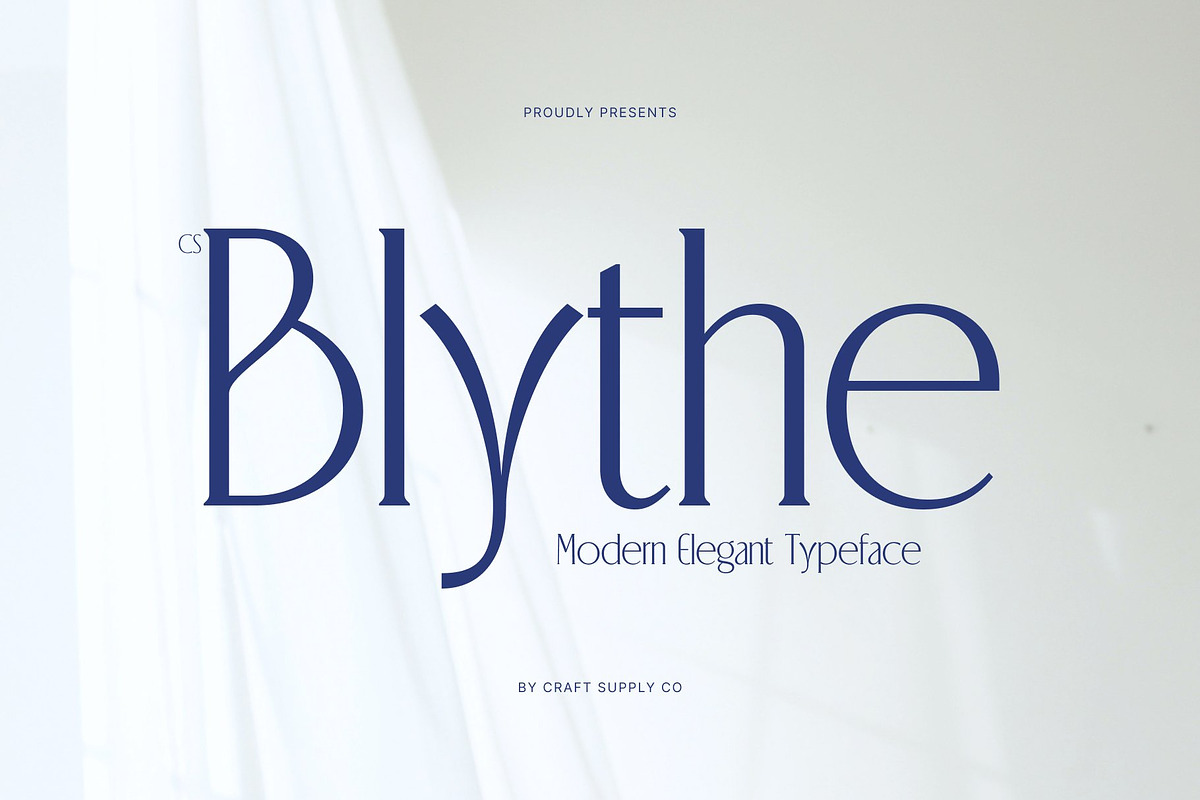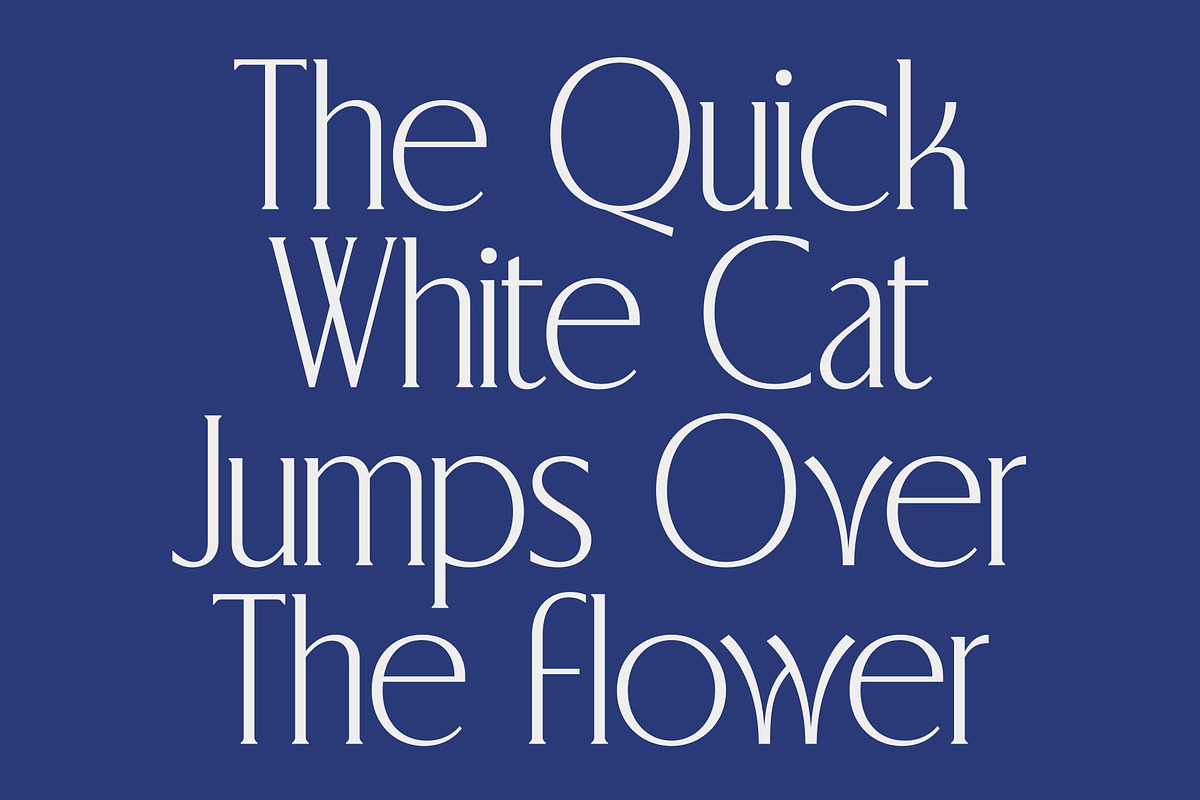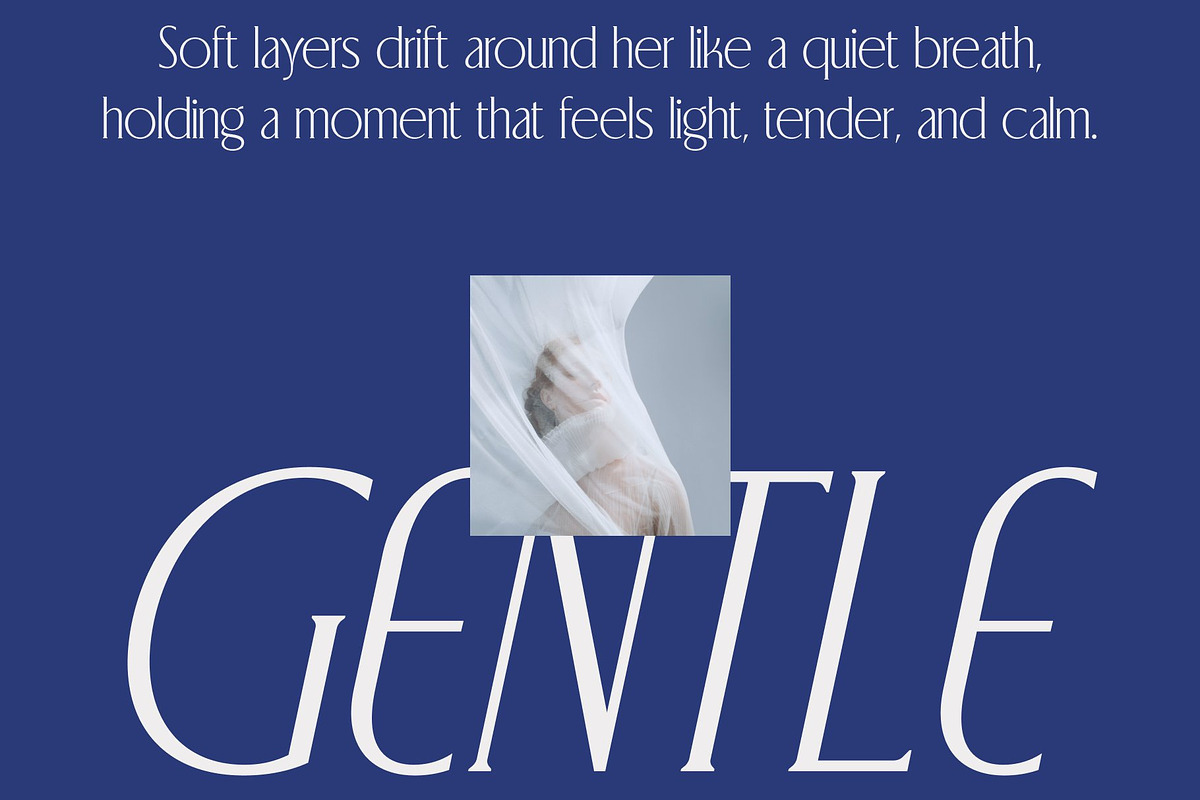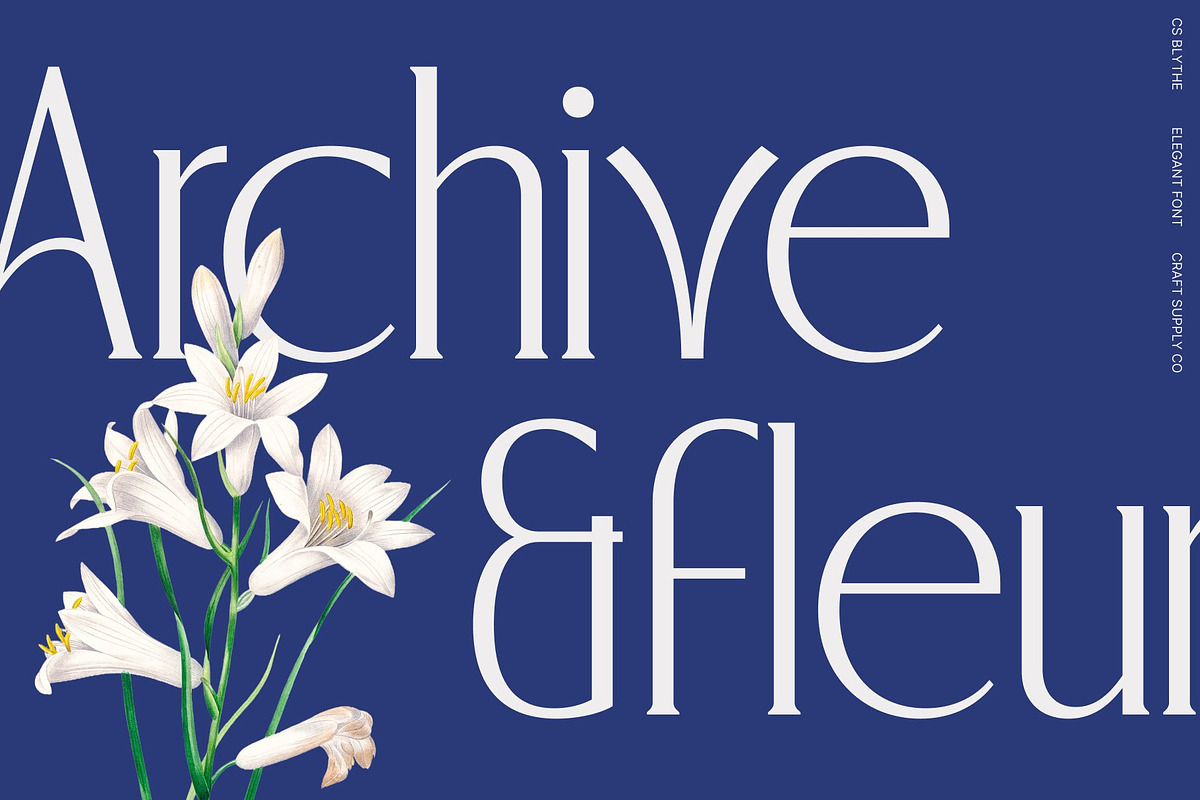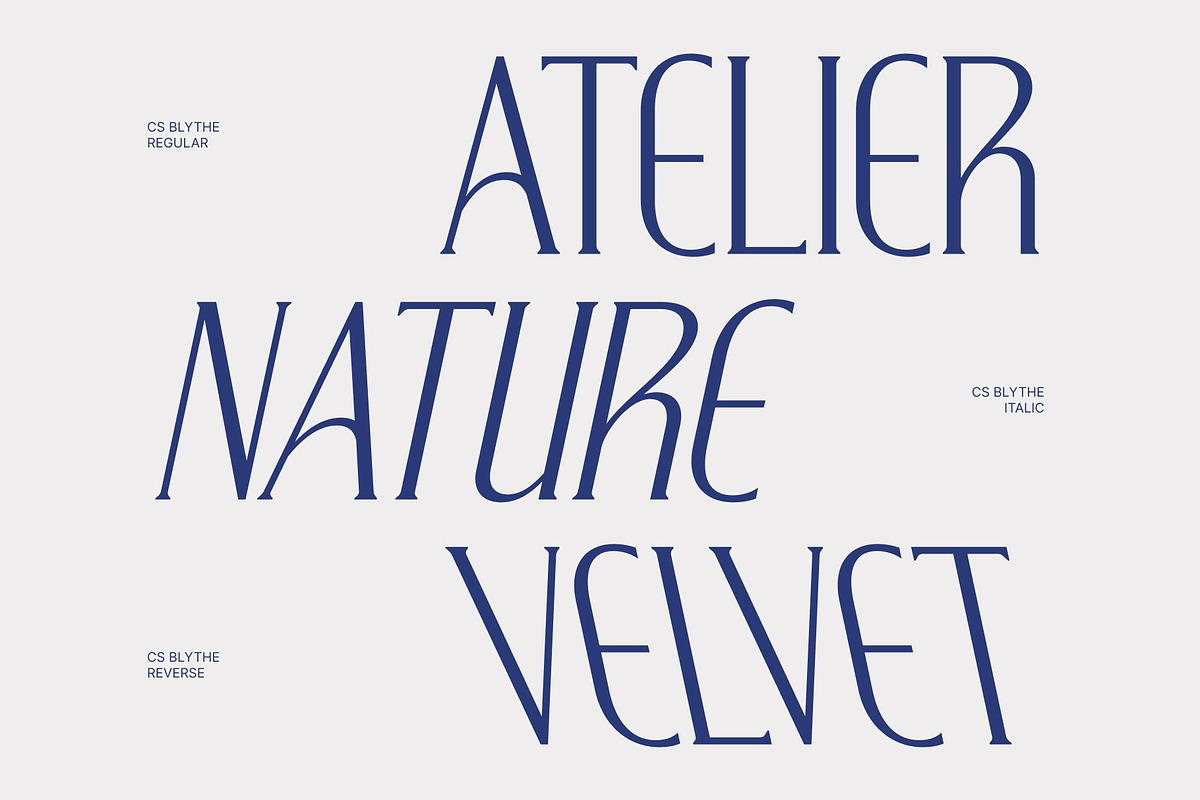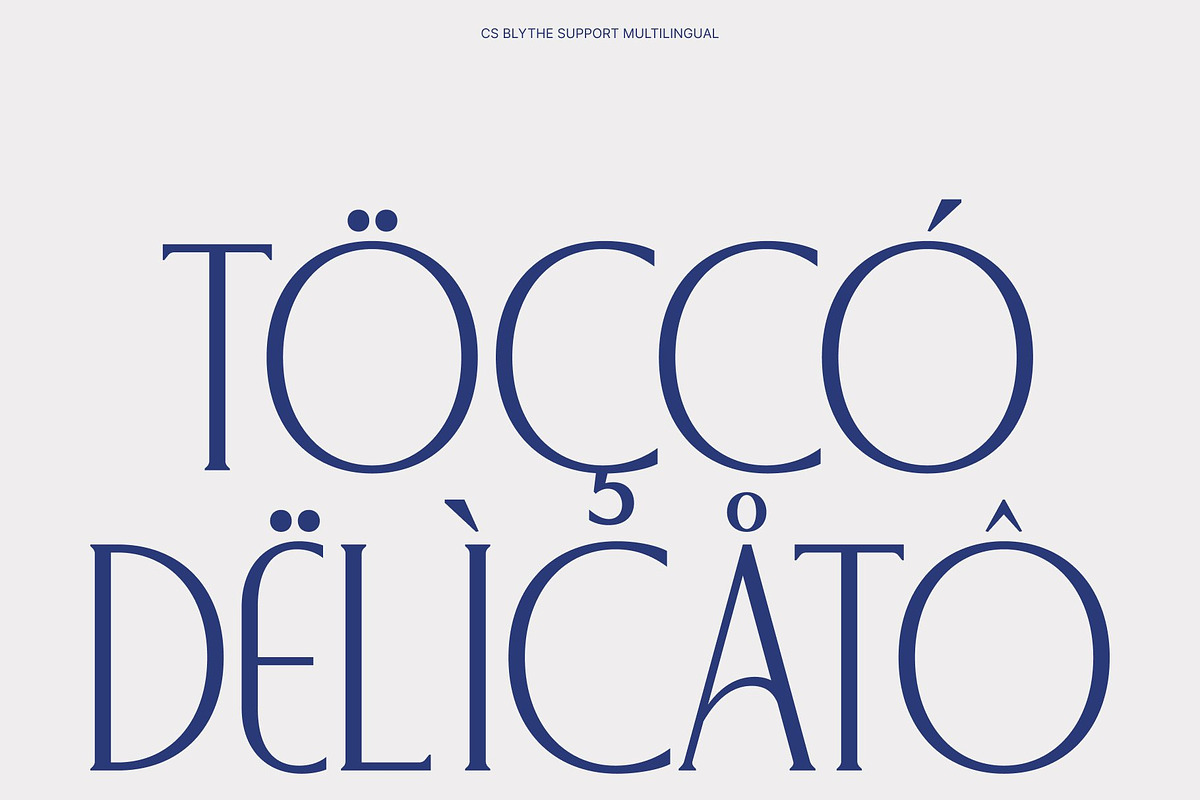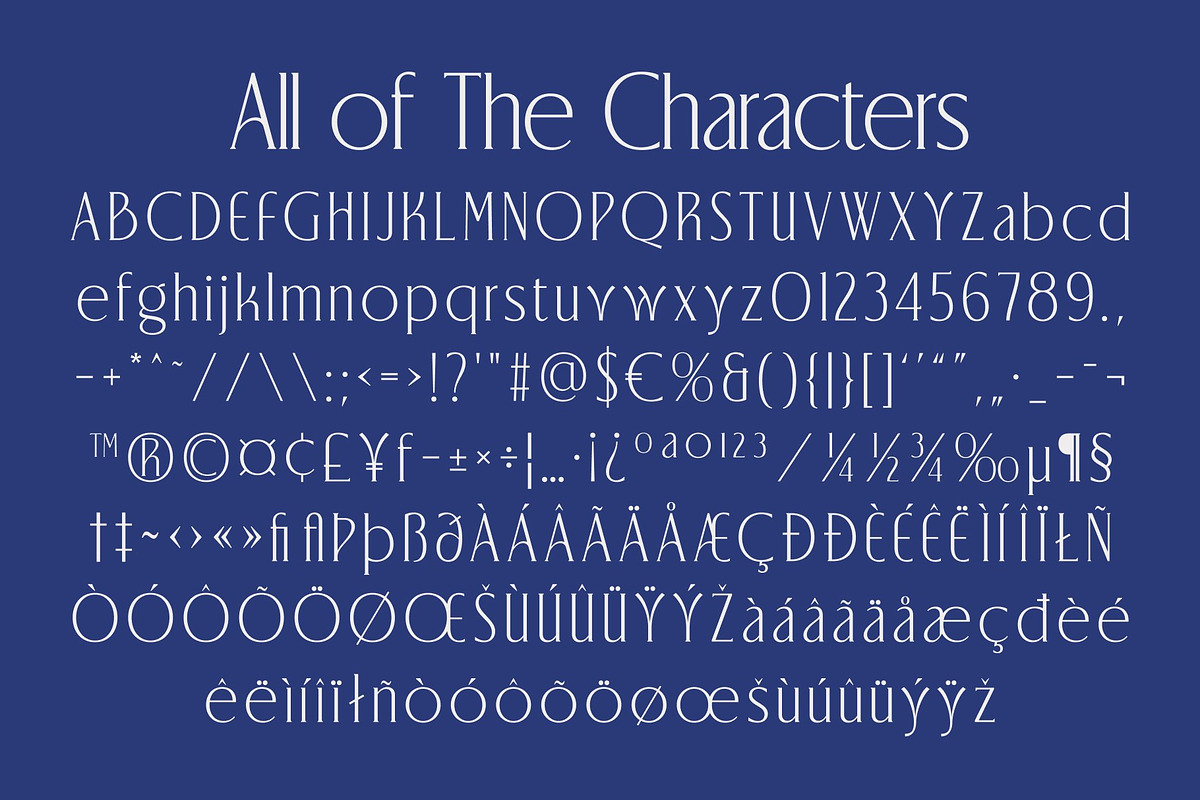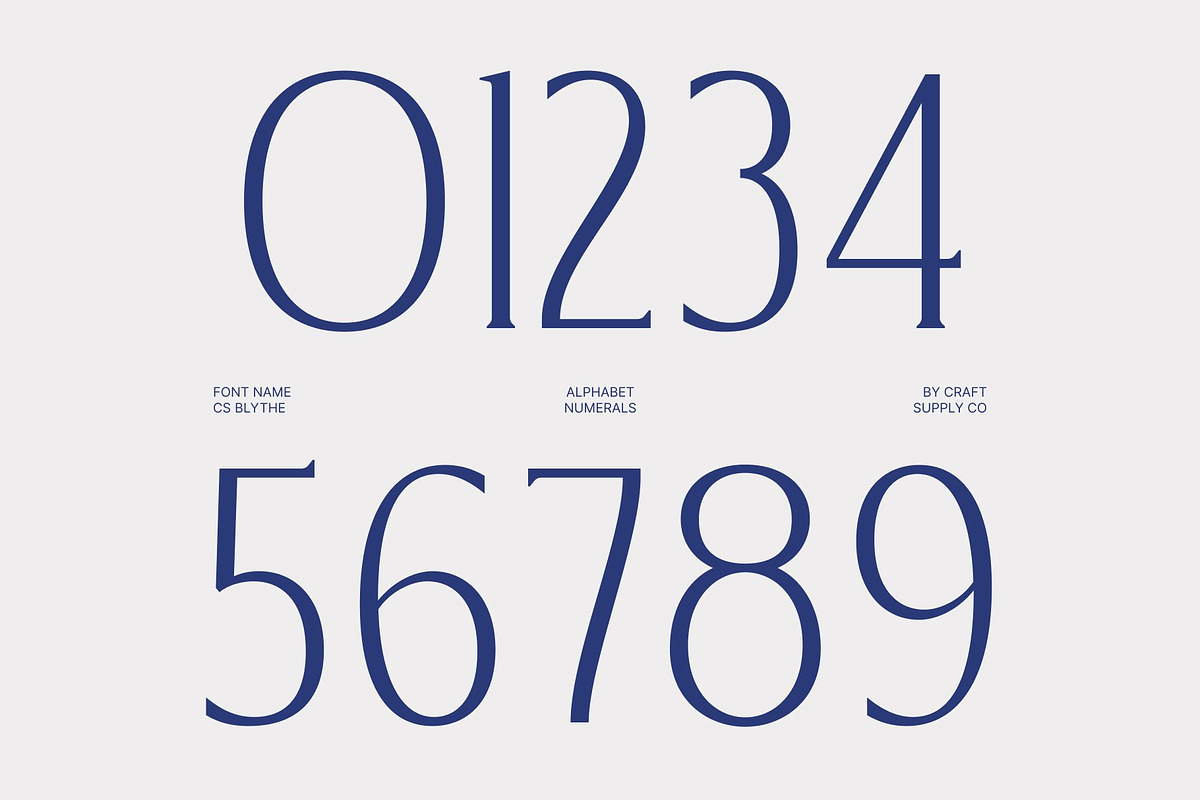
CS Blythe – Stylish Serif Font
CS Blythe – Stylish Serif Typeface with Modern Elegance
Stylish Serif with Sophisticated Character This is a stylish serif typeface that blends modern sophistication with timeless elegance. Designed to embody refined beauty, this font brings a graceful and polished presence to every composition. Its balanced proportions and carefully crafted details make it a perfect choice for designers seeking typography that feels luxurious and contemporary.
Refined Details with Modern Grace Each letterform features smooth curves and elegant structure, creating a harmonious and visually pleasing rhythm. The subtle contrast and refined serifs add depth and personality, giving the typeface a high-end aesthetic while maintaining excellent readability. This thoughtful design ensures the font feels both fashionable and timeless.
Elegant Personality with Versatile Appeal This font offers a sophisticated typographic voice that adapts beautifully across various creative styles. Its stylish presence elevates text without overwhelming the layout, allowing it to shine in both bold headlines and refined body text. The result is a typeface that communicates confidence, elegance, and artistic charm.
Perfect for Branding, Fashion Campaigns, and Creative Layouts From luxury branding and fashion editorials to modern advertising and creative layouts, this font provides a versatile typographic solution. Its combination of elegance, clarity, and modern style ensures your designs feel premium, stylish, and visually captivating.
CS Blythe Regular
CS Blythe Italic
CS Blythe Reverse Italic